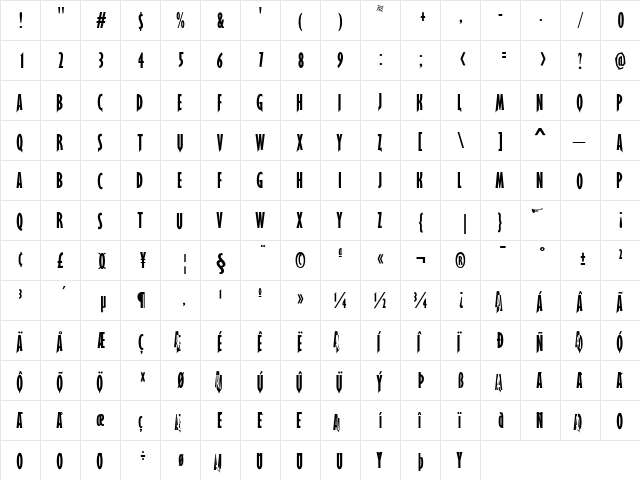
Garrison ExtraCond. Sans Regular Font Preview
Garrison ExtraCond. Sans Regular
Garrison ExtraCond. Sans Regular Font Details
Design Context for Garrison ExtraCond. Sans Typeface
Garrison ExtraCond. Sans is a composed and adaptable typeface that performs quietly and consistently across a wide range of design contexts. Its narrow stance lets it pack a punch even in space-constrained designs.